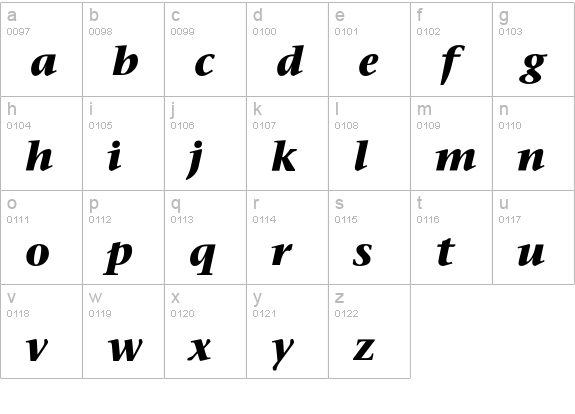
Stone Serif Bold Italic is a strong, high-contrast, italic variant in the Stone typeface family \xE2\x80\x94 well suited to headlines, attention-grabbing titles, and strong calls-to-action.
Stone Serif Bold Italic font is a versatile and striking typeface that exudes elegance and sophistication. With its bold and slanted design, this font is perfect for creating eye-catching headlines, titles, and branding materials. The strong serifs and italicized style give it a modern yet timeless look, making it suitable for a wide range of design projects. What's even better is that Stone Serif Bold Italic font is available for free download at FontsMarket.com. This means you can easily access this high-quality font without having to worry about any additional costs. Whether you're working on graphic design projects, marketing materials, or any other creative endeavor, Stone Serif Bold Italic font will elevate your work and make a lasting impression. Download it today and add a touch of sophistication to your designs!